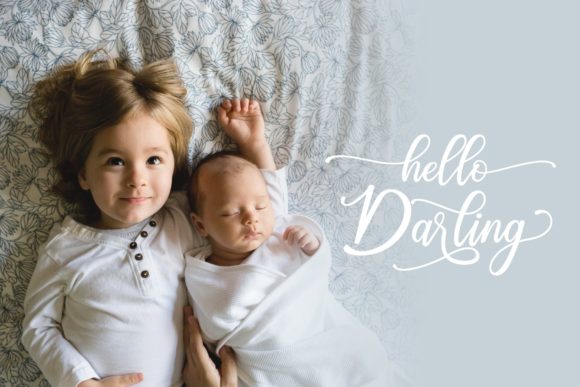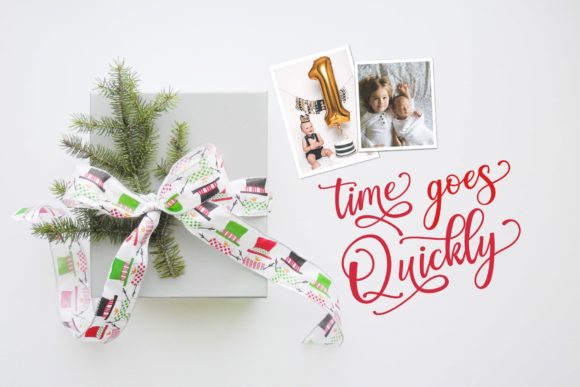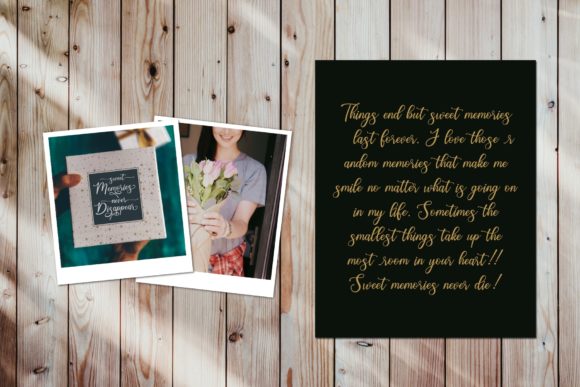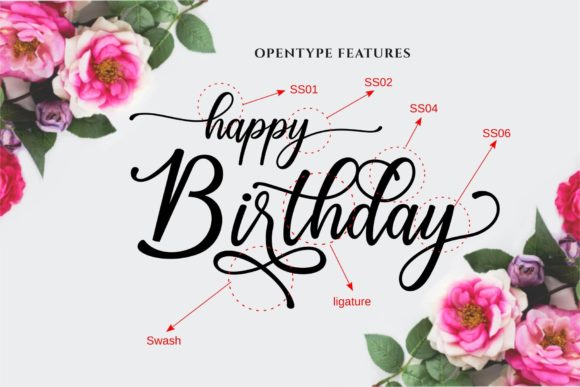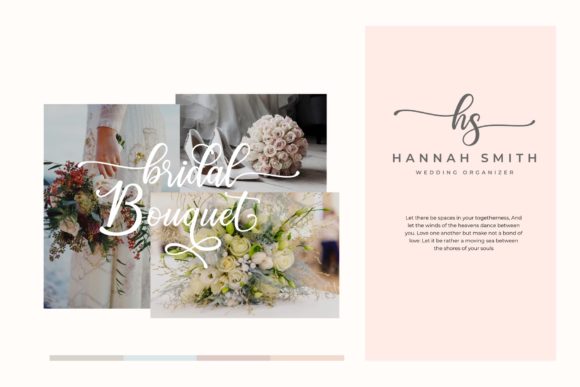
Happy Birthday Font: Elevate Your Designs with a Bold and Beautiful Script Font
Are you looking for a font that can add a touch of elegance and sophistication to your designs? Look no further than the Happy Birthday font. This stunning script font is perfect for designers and crafters who want to create bold and eye-catching projects. In this article, we’ll take a closer look at the Happy Birthday font, its unique features, and how you can use it to take your designs to the next level.
What is Happy Birthday Font?
Happy Birthday is a pretty amazing script font that will add a bold feel to your next design project. Get inspired by its unique style! This beautiful font is designed to resemble handwritten script, with flowing lines and elegant curves. It’s perfect for creating a wide range of designs, from birthday cards and invitations to posters and social media graphics.
Unique Features of Happy Birthday Font
So, what makes the Happy Birthday font so special? Here are just a few of its unique features:
- Bold and Elegant Style: The Happy Birthday font has a bold and elegant style that’s perfect for making a statement. Its thick lines and flowing curves give it a luxurious feel that’s sure to impress.
- Handwritten Script: This font is designed to resemble handwritten script, giving it a personal and human touch. It’s perfect for creating designs that feel warm and inviting.
- Highly Versatile: The Happy Birthday font is highly versatile, making it suitable for a wide range of design projects. Use it for birthday cards, invitations, posters, social media graphics, and more.
- Easy to Read: Despite its bold style, the Happy Birthday font is easy to read, even at small sizes. This makes it perfect for creating designs that need to be both eye-catching and legible.
How to Use Happy Birthday Font in Your Designs
Now that we’ve covered the unique features of the Happy Birthday font, let’s take a look at how you can use it in your designs. Here are a few ideas to get you started:
- Birthday Cards and Invitations: The Happy Birthday font is perfect for creating birthday cards and invitations. Use it to add a bold and elegant touch to your designs.
- Posters and Flyers: This font is also great for creating posters and flyers. Use it to grab attention and make a statement.
- Social Media Graphics: The Happy Birthday font is perfect for creating social media graphics, such as Facebook posts and Instagram stories. Use it to add a touch of elegance and sophistication to your designs.
- Crafting Projects: If you’re a crafter, you’ll love the Happy Birthday font. Use it to create beautiful handmade cards, gift tags, and other crafting projects.
Tips for Getting the Most Out of Happy Birthday Font
Here are a few tips for getting the most out of the Happy Birthday font:
- Experiment with Different Sizes: Don’t be afraid to experiment with different sizes of the Happy Birthday font. Use it at large sizes to make a bold statement, or at smaller sizes to add a touch of elegance.
- Pair it with Other Fonts: The Happy Birthday font pairs well with other fonts, such as sans-serif fonts and serif fonts. Experiment with different font combinations to find the perfect look for your design.
- Use it in Combination with Images: The Happy Birthday font looks great in combination with images. Use it to add a touch of elegance to your designs, and pair it with images to create a visually appealing effect.
In conclusion, the Happy Birthday font is a beautiful and versatile script font that’s perfect for designers and crafters. Its bold and elegant style, combined with its highly versatile nature, make it a great addition to any design project. Whether you’re creating birthday cards, posters, social media graphics, or crafting projects, the Happy Birthday font is sure to inspire. So why not give it a try and see what amazing designs you can create?